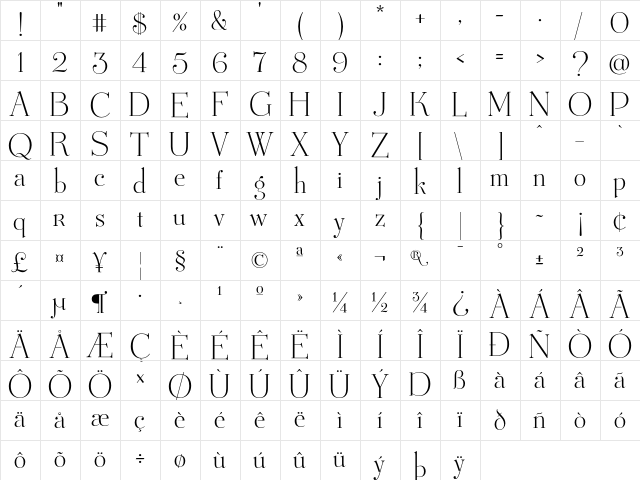
Mussica Regular
| Foundry | Manuel Eduardo Corradine |
| Designer | Manuel Eduardo Corradine |
Design Context for Mussica Typeface
Mussica offers clean, dependable letterforms without strong stylistic allegiance, making it a practical choice for designers who need flexibility.
Pro Tip: Use Mussica in both headline and body roles to test its range before committing to a single application.